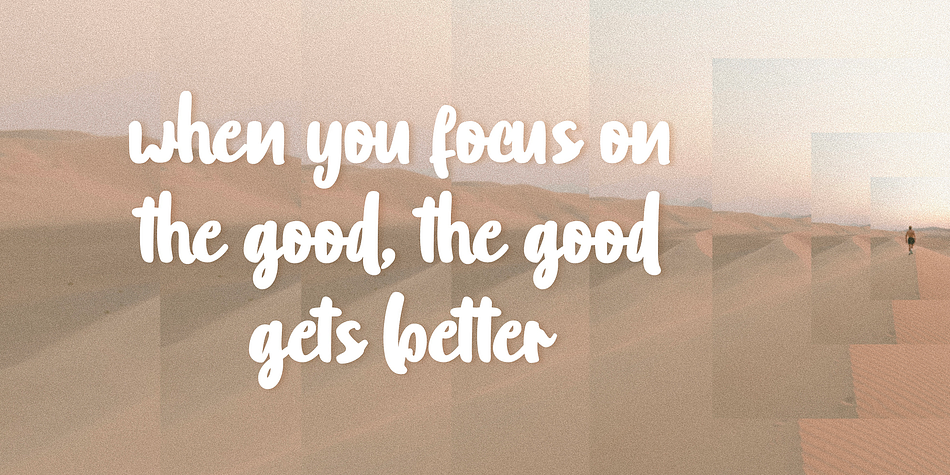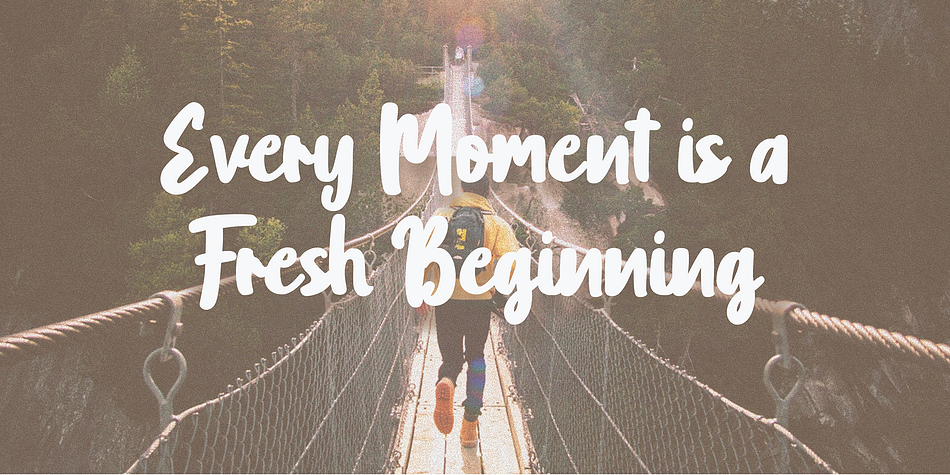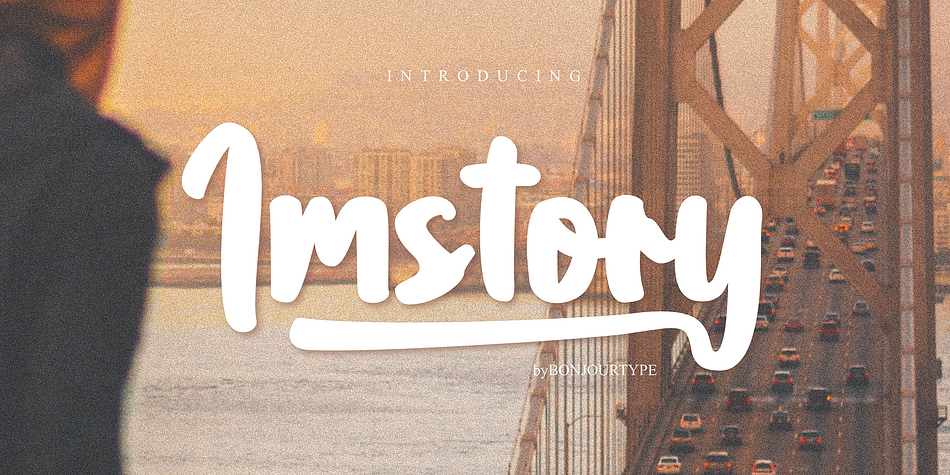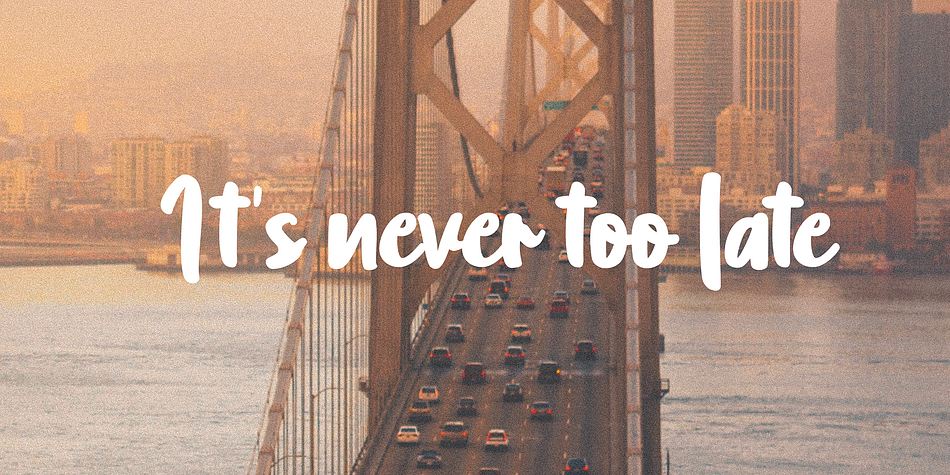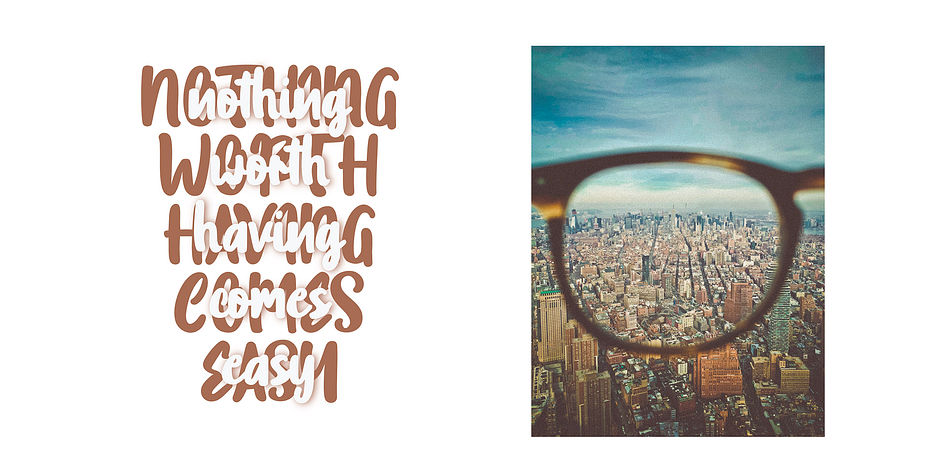
Designed by Rachma BT, Imstory is a modern calligraphy and script font published by Bonjour Type.
Imstory fonts can be used for various purposes, such as: Photography, Weddings, Ceremonies, Product Packaging, Logo Types, Branding, T-Shirt Design, Website / Blogs, Social media images, Quotes, etc.
Featured fonts: Uppercase, Lowercase, Numbers, Symbols, Accents, Alternative Swash, and also supports multilingual